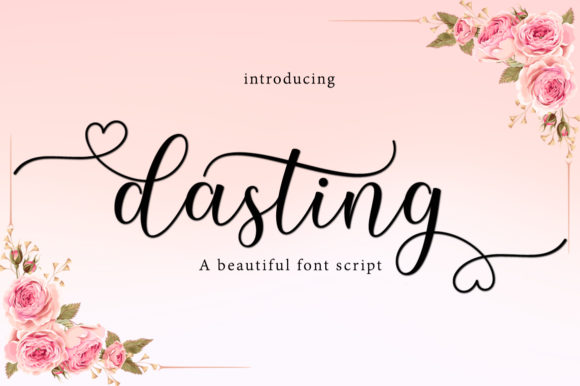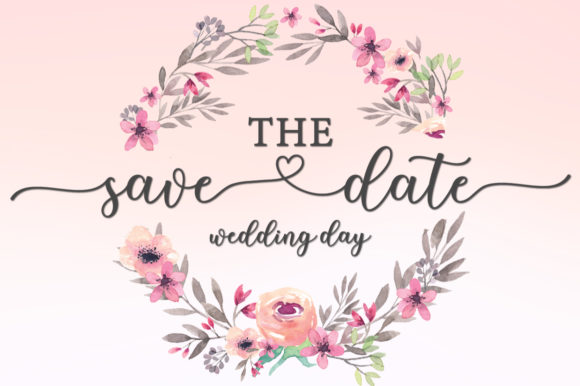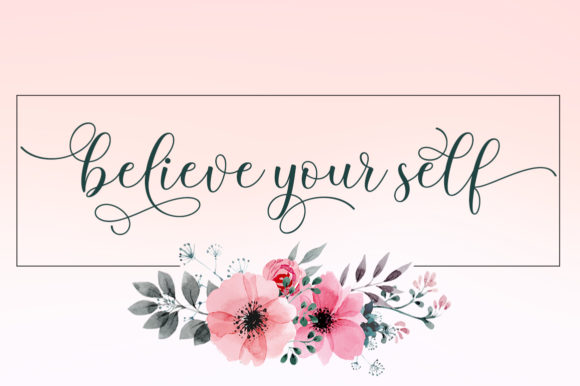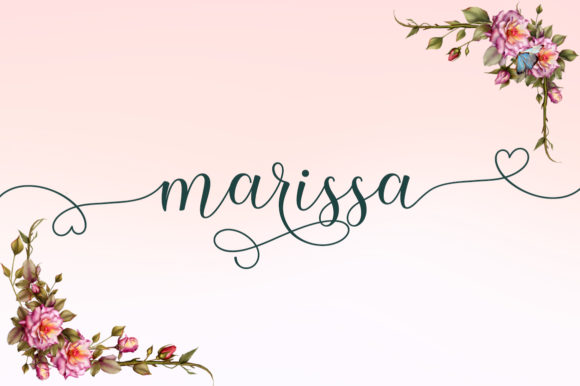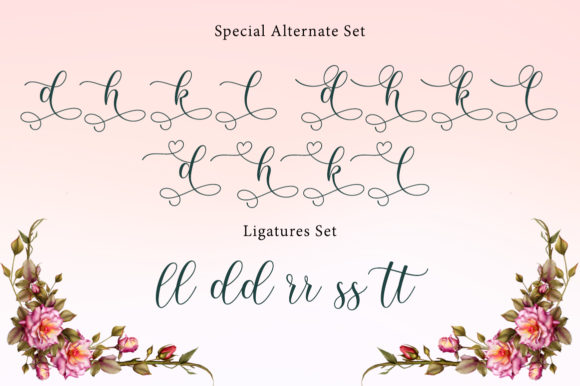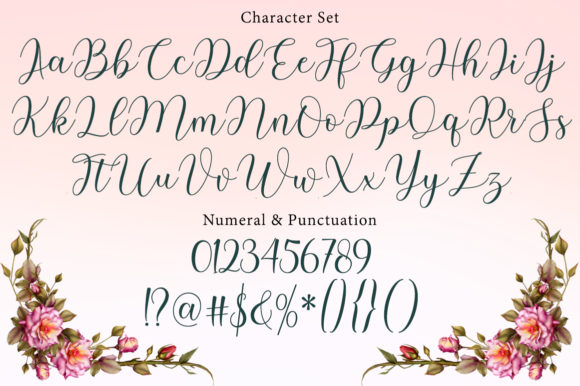
Dasting Font
About Dasting Font
Dasting is a sweet, soft hand-lettered font. It features a varying baseline, smooth lines, gorgeous glyphs and stunning alternates. Fall in love with its authentic feel and use it to create gorgeous wedding invitations, beautiful stationary art, eye-catching social media posts, and cute greeting cards.